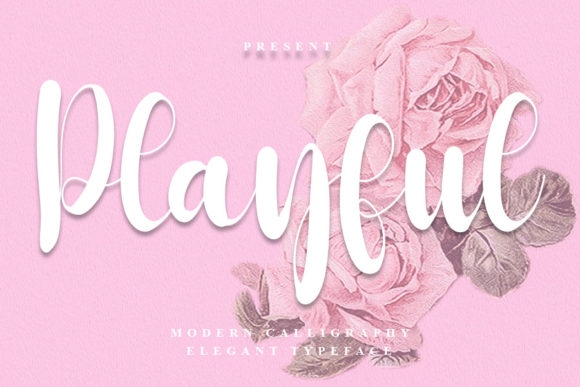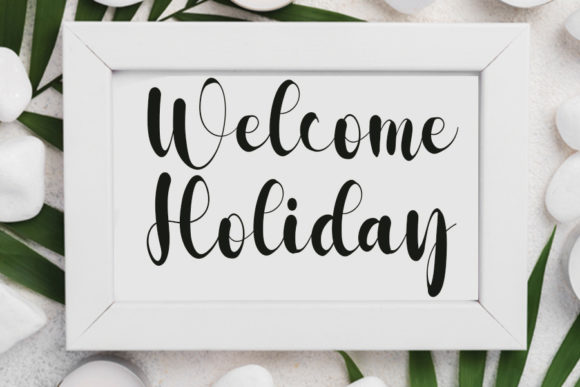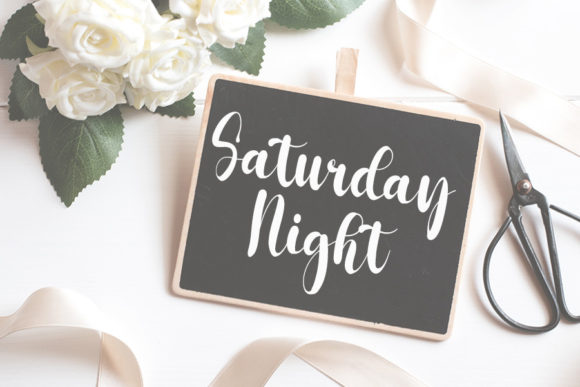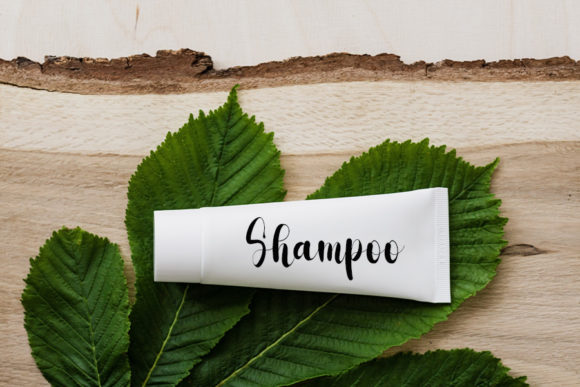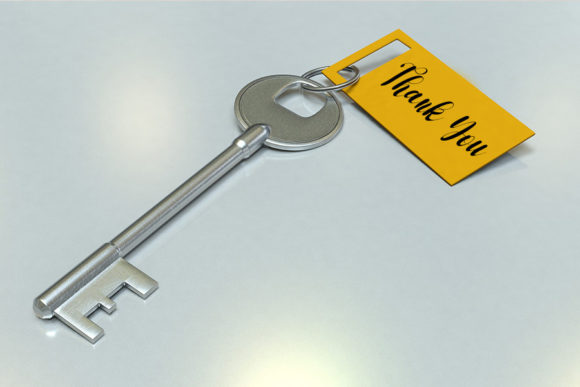
Playful Font
About Playful Font
Playful is a beautiful and refined script font. It has a classy, elegant and modern look that can be used for logos, branding, invitations, stationery, wedding designs, social media posts, and much more!